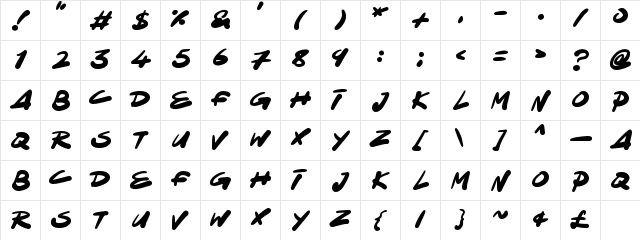
Ninja Note Regular
Design Context for Ninja Note Typeface
Ninja Note is a composed and adaptable typeface that performs quietly and consistently across a wide range of design contexts.